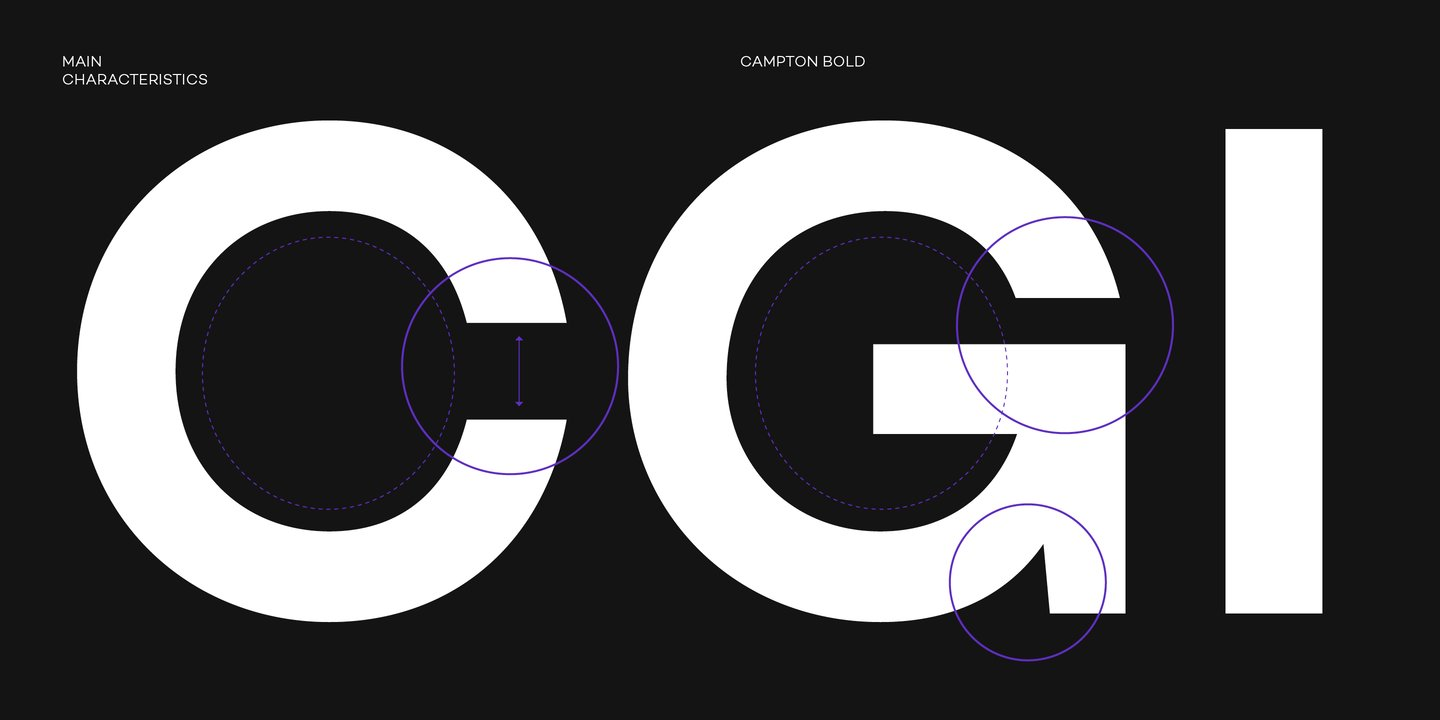
Campton vs Gotham Screenwise
Campton and Gotham Screenwise are both sans-serif typefaces sharing a geometric foundation. Where Campton leans warm, editorial, Gotham Screenwise brings web optimized. Compare which suits your Ui project.
Campton
Gotham Screenwise
Campton
Gotham Screenwise
Campton
- European corporate identity systems
- Startup branding and pitch decks
- Editorial magazine layouts
- Packaging and retail environments
- Technology company marketing sites
Recommended: Campton
- warm, editorial design character
- Suited for Editorial and Branding
Consider: Gotham Screenwise
- web optimized design character
- Suited for Apps and Web